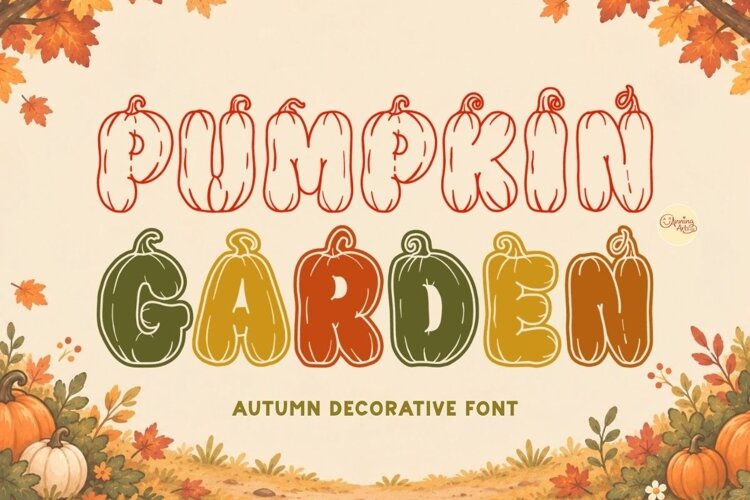
Pumpkin Garden is an autumn decorative font duo with pumpkin-shaped uppercase letters, curly stems, hand-drawn outline details, and a cozy fall harvest style. This font includes regular and outline styles, making it useful for both bold seasonal designs and lighter line-art projects.